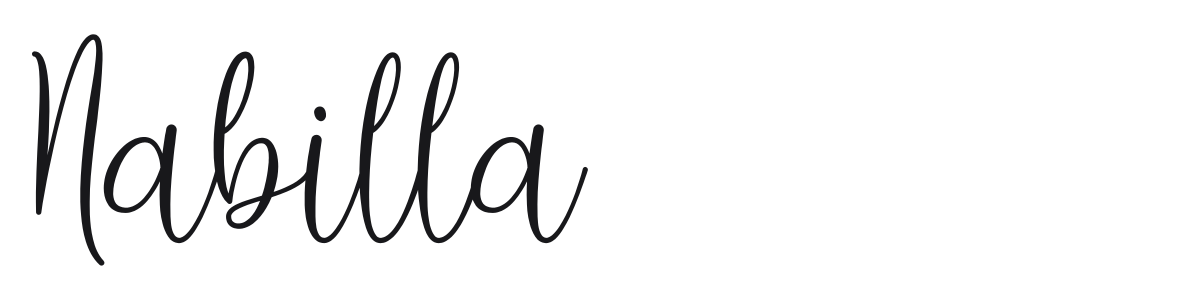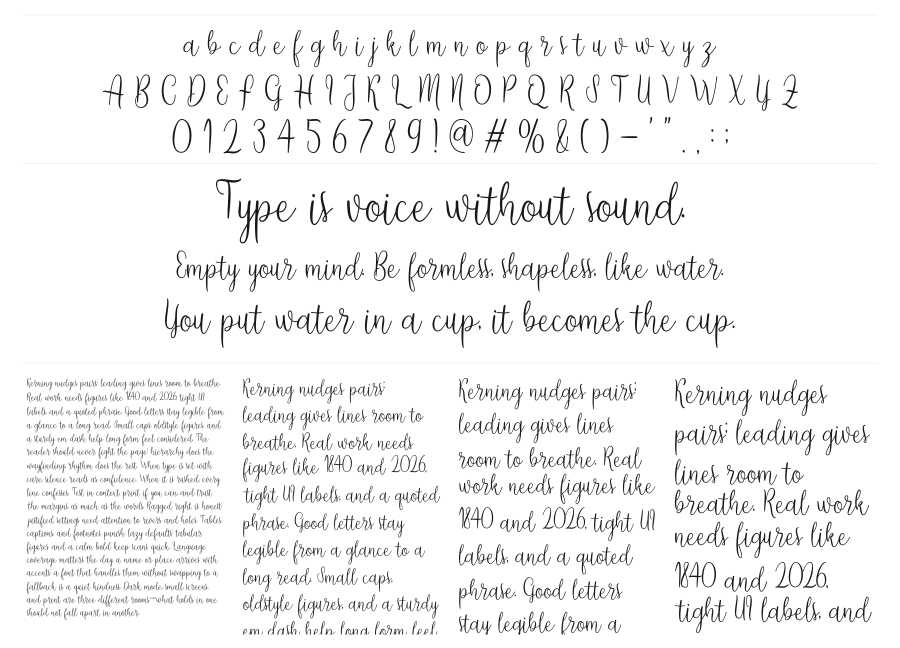
Nabilla
Nabilla is a flowing casual script from Doehantz Studio built on generous loops and a lively, slightly bouncing baseline. The connected strokes and rounded forms give it a handcrafted warmth that sits somewhere between a brush script and polished calligraphy. It reads as friendly and inviting at headline sizes, making it a natural choice for branding, invitations, and product packaging.